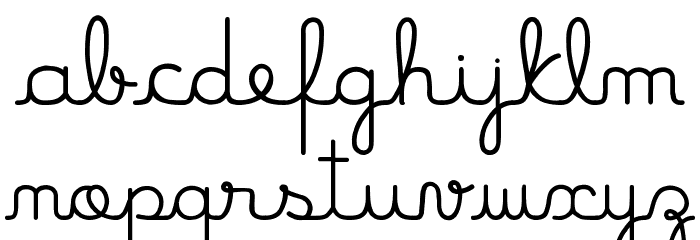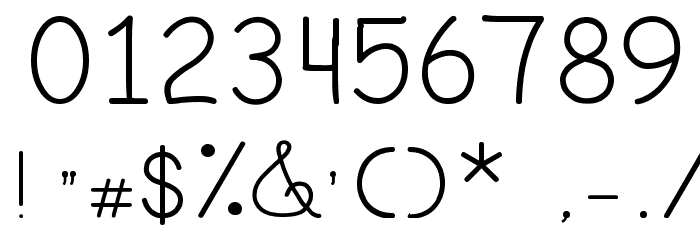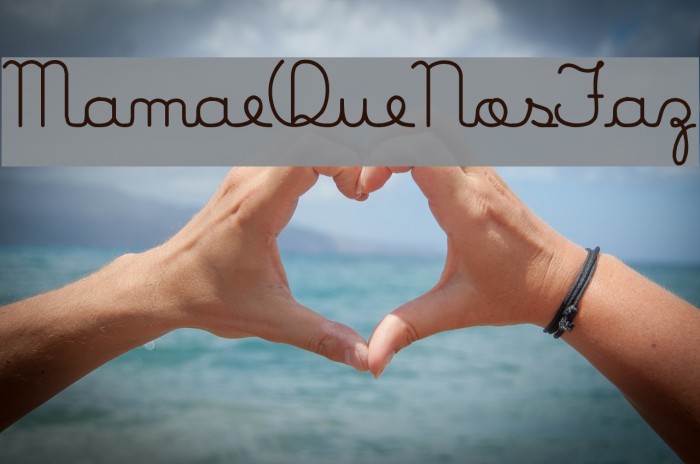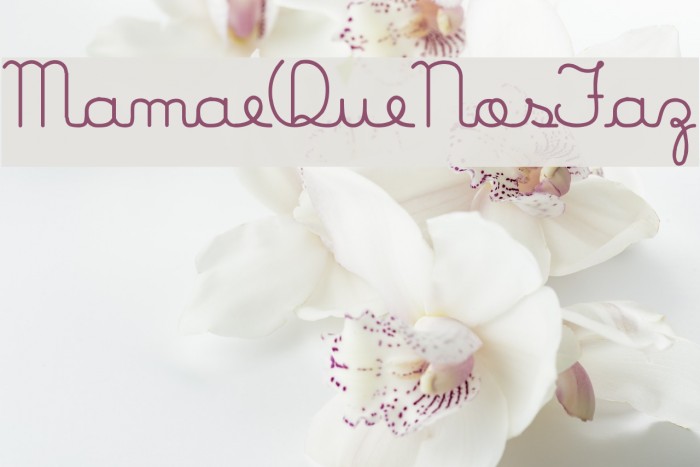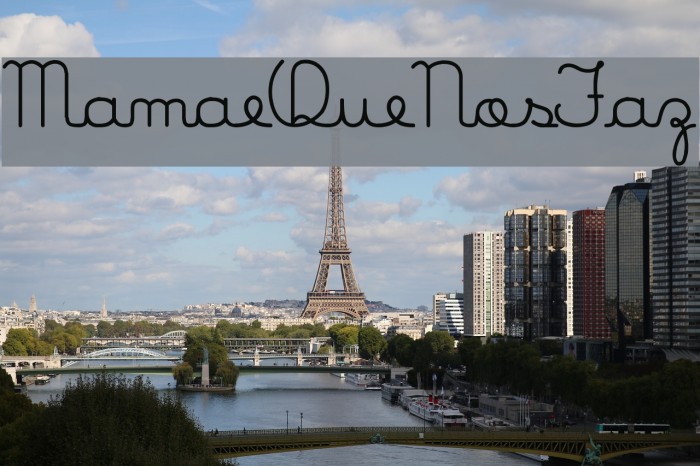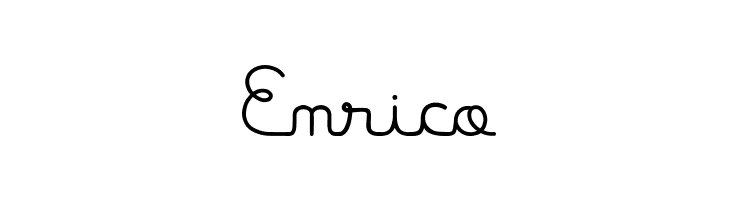
MamaeQueNosFaz Font
This font features a playful and whimsical design with a handwritten style. The characters are connected with smooth, flowing lines that give it an organic feel. The uppercase letters are distinct with unique loops and curves, while the lowercase letters maintain a consistent and cohesive appearance. Numbers and special characters are designed to match the overall aesthetic, providing a harmonious look. The font's style is both approachable and artistic, making it suitable for creative projects that require a personal touch.
A playful, handwritten font with smooth, flowing lines and unique character loops.
- Proposed Projects: Ideal for greeting cards, children's books, creative invitations, and playful branding.
- Overall Style: Playful, Artistic
- Use Case: Logos, Invitations, Creative projects